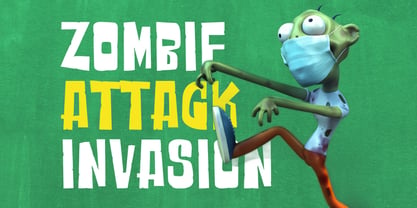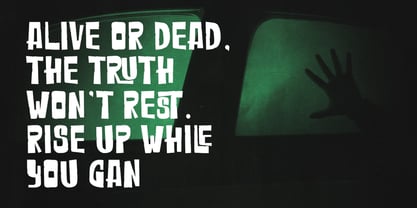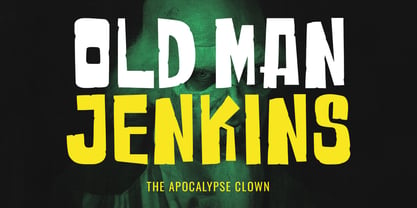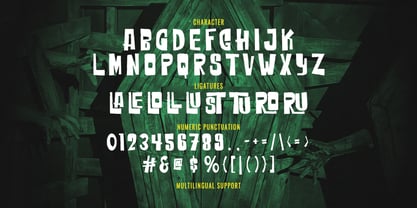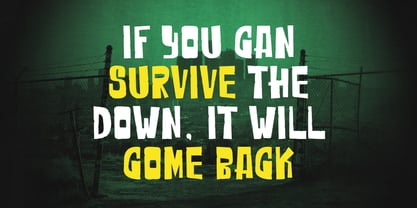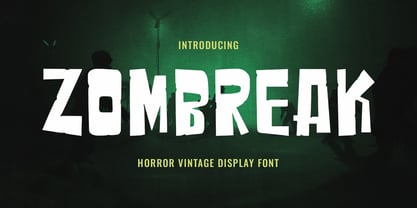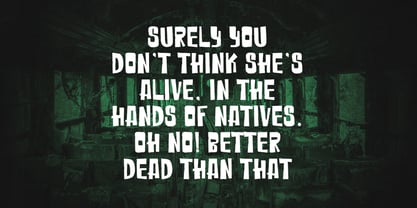
MC Zombreak
by Maulana Creative
The MC Zombreak Font Family was designed by Gilang Maulana and published by Maulana Creative. MC Zombreak contains 1 styles. More about this family
Step into the world of classic horror and retro suspense with Zombreak, a display font designed to give your projects a raw, spine-chilling edge. Inspired by vintage zombie movie posters and apocalyptic aesthetics, Zombreak features rugged, blocky letterforms with a hand-carved feel that screams "survival." Whether you are designing a title for a horror film, a spooky Halloween party invitation, a gritty comic book cover, or gaming merchandise, Zombreak provides the perfect balance of vintage charm and terrifying impact. It comes packed with unique ligatures and multilingual support to ensure your designs look professional and custom-made.
Designers: Gilang Maulana
Foundry: Maulana Creative